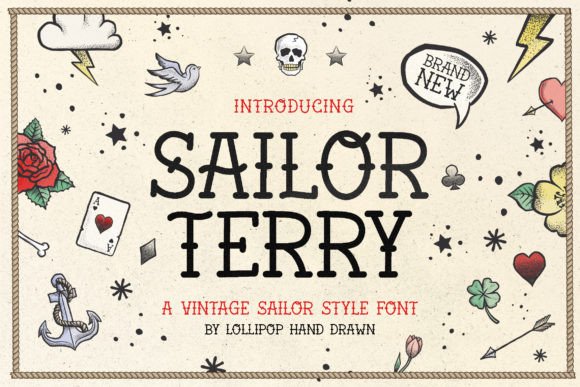
Introducing Sailor Terry Font, the perfect font for adding a modern and intriguing touch to your creative designs. Created by Lollipop Hand Drawn, this display font family is one of the Best Fonts for Quotes on Canva.
With Sailor Terry, you can take your designs to the next level. This eye-catching font will add an incredible look to your designs, making them stand out from the crowd. Whether you're creating social media graphics, logos, or website designs, Sailor Terry is the perfect addition to each of your creative ideas.
This font is not only visually appealing but also highly versatile. Its unique and stylish design makes it suitable for various design projects, from minimalistic to bold and expressive. The font is also easy to read, ensuring that your audience can effortlessly understand your message.
Sailor Terry Font is perfect for those who want to add a touch of creativity and uniqueness to their designs. Its bold and modern style makes it a great choice for quotes, headlines, and titles. The font will evoke emotions and leave a lasting impression on your audience.